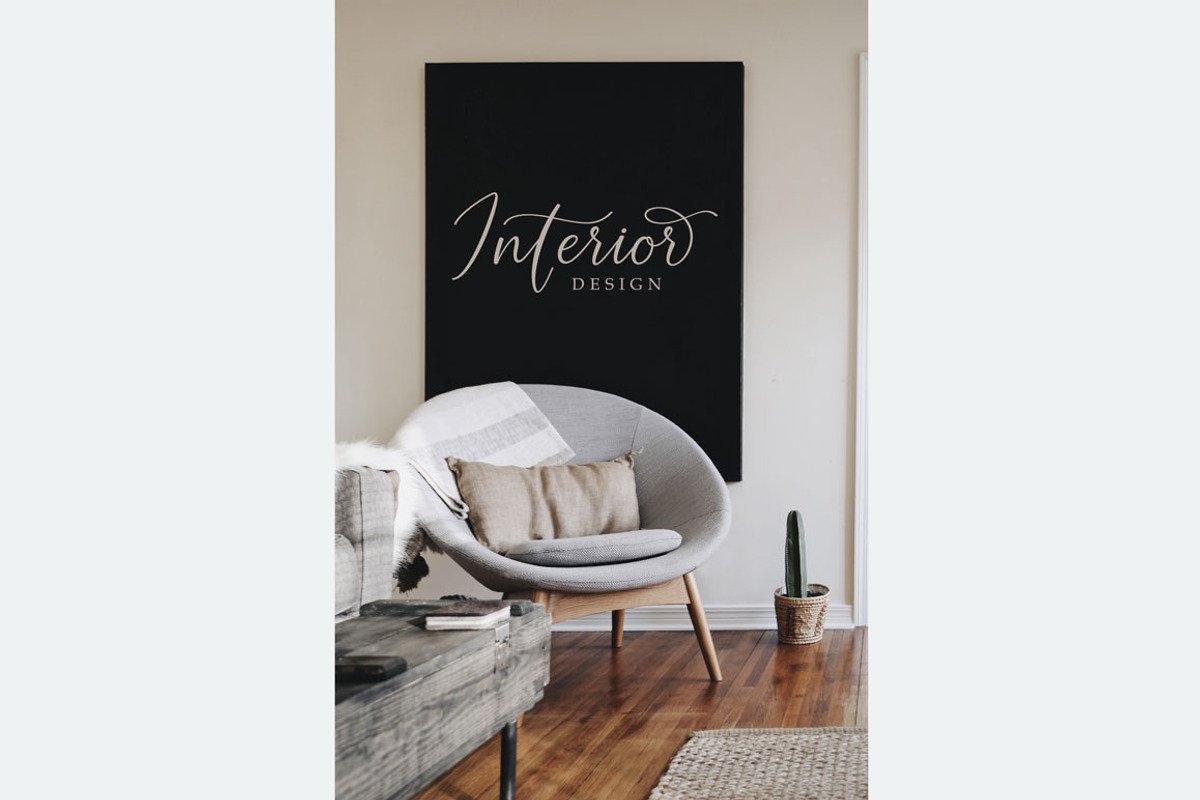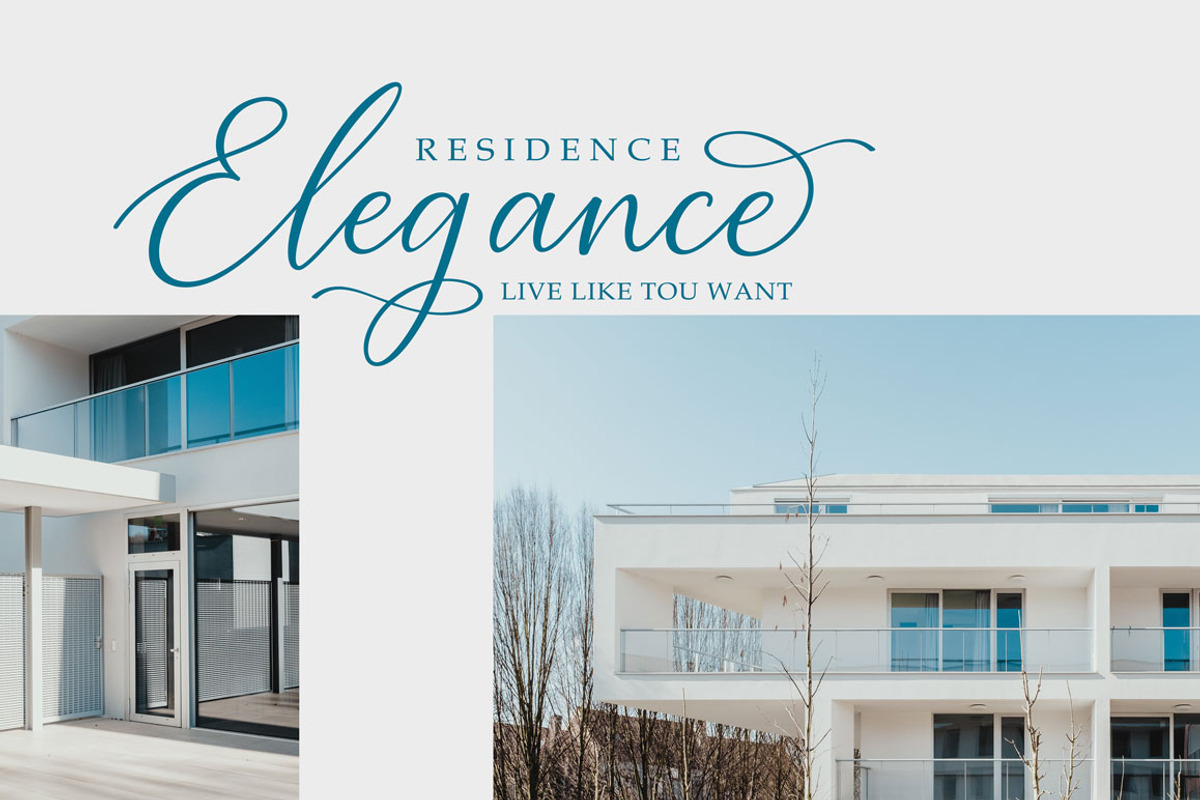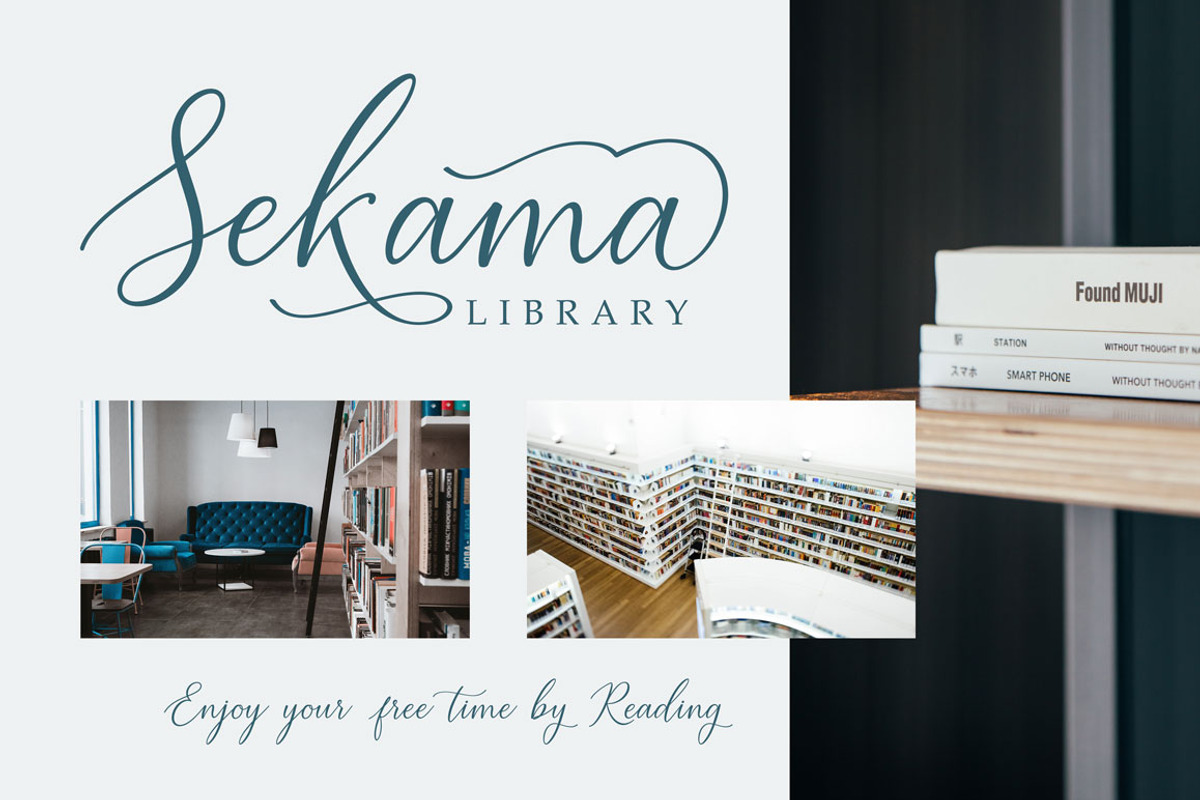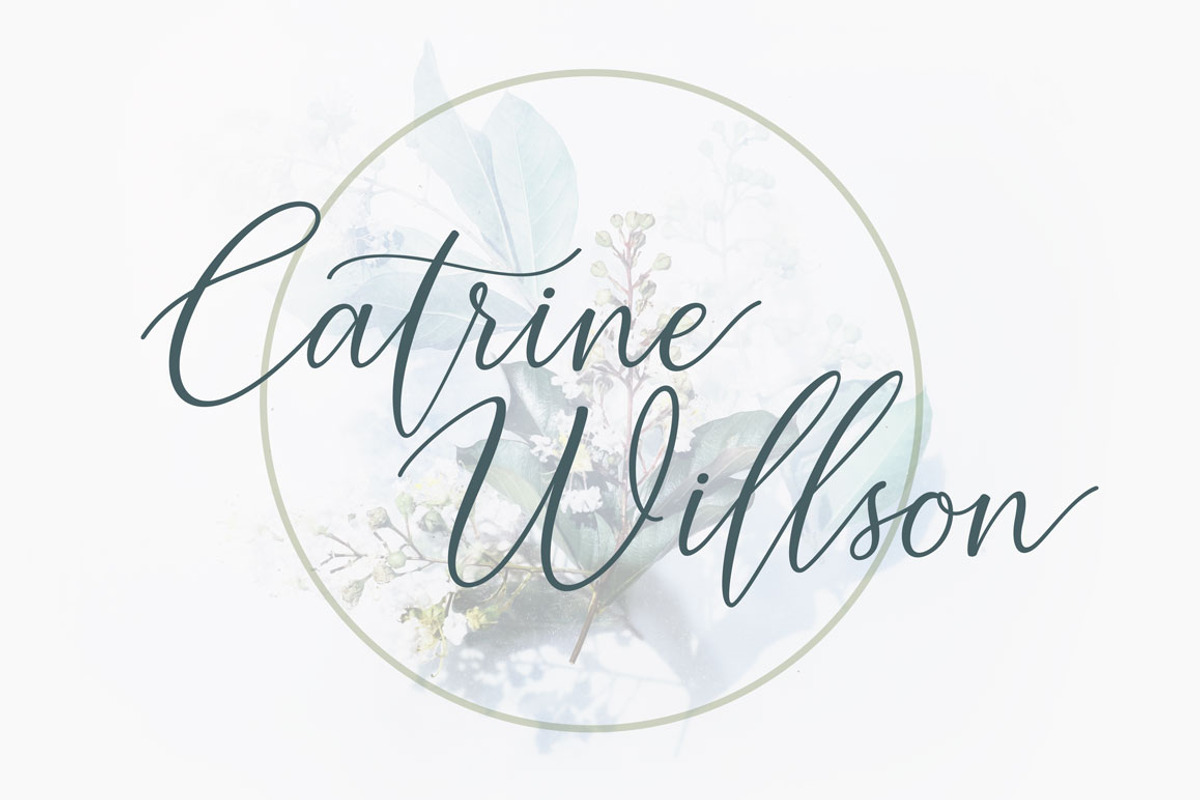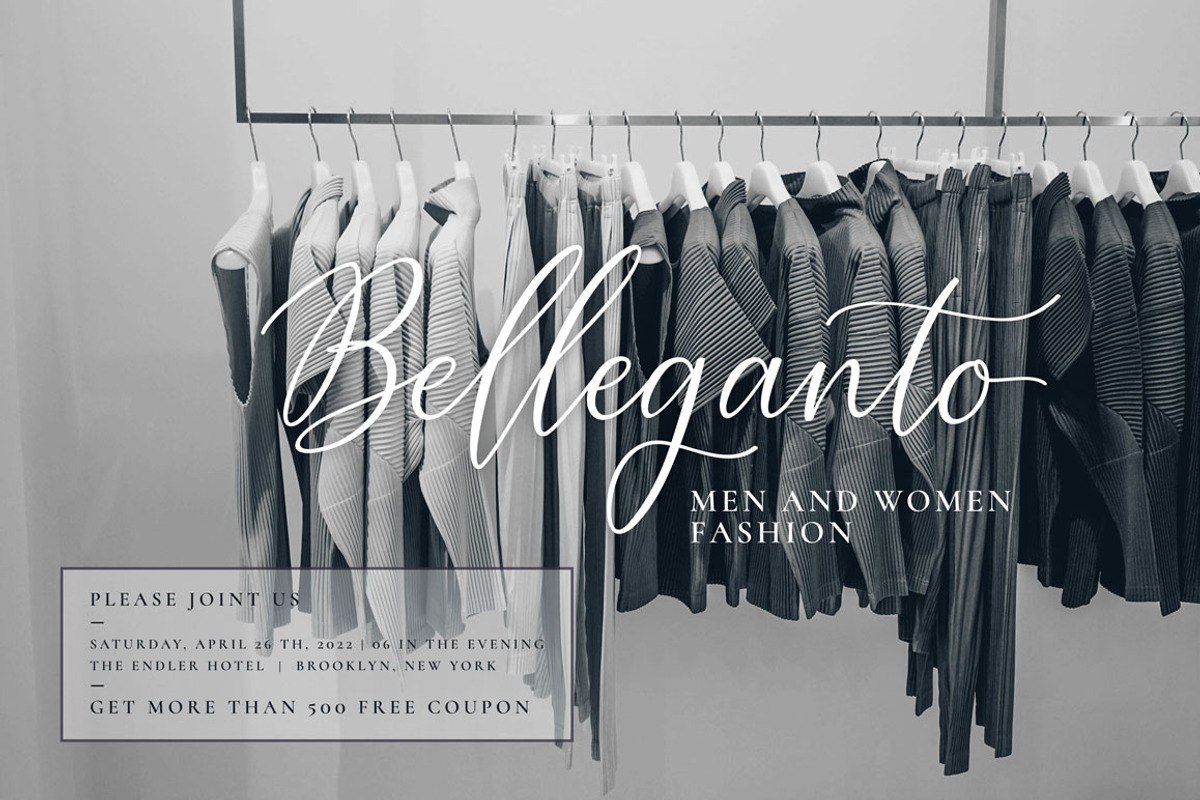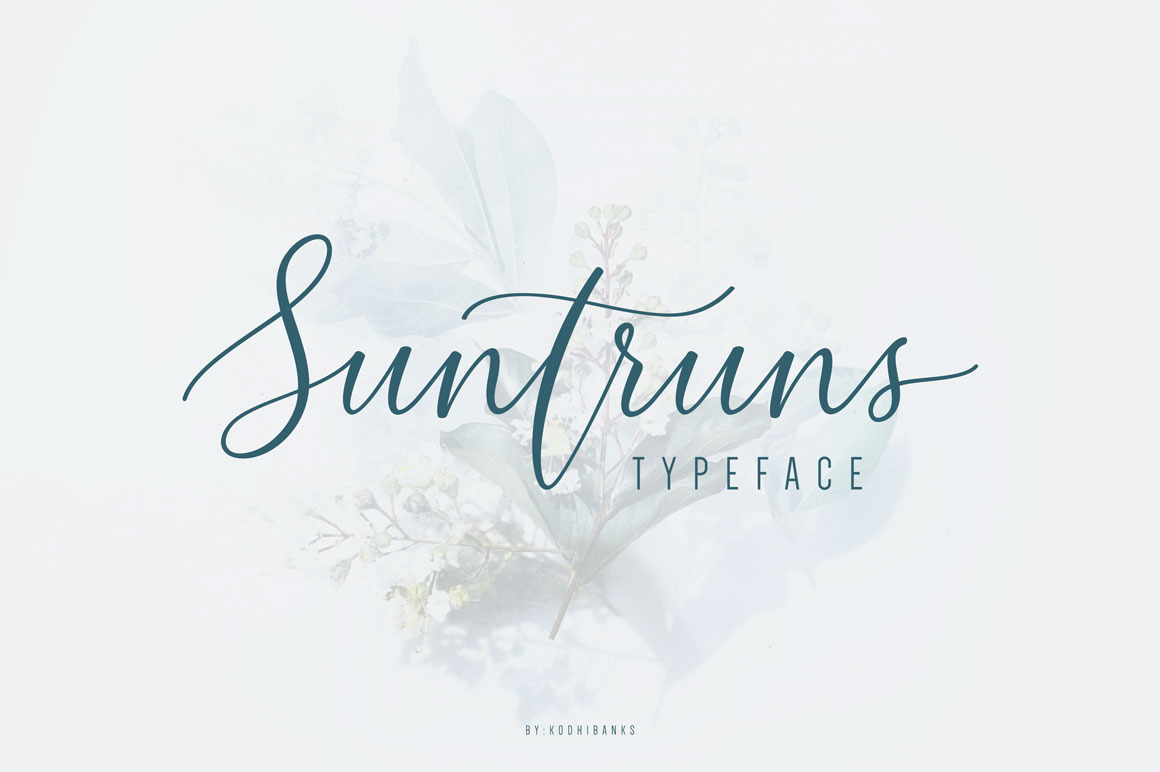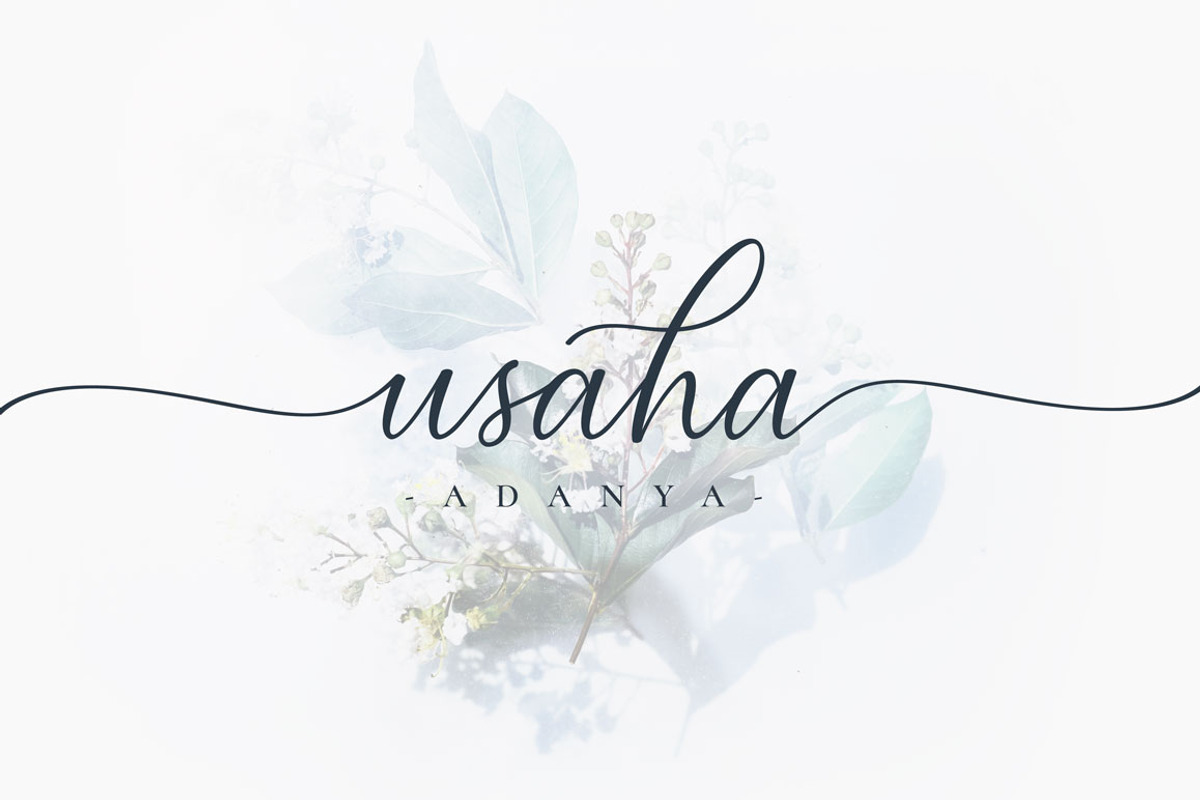
Suntruns Typeface
Suntruns Typeface is a modern typeface based on hand lettering that consists of an irregular swirling and flowing that gives the impression of handwriting, so it looks beautiful. This Typeface suitable for wedding invitations, greeting cards, quotes, photo captions, logo lettering, posters, branding, design of water-based paints, correspondence, and a variety of other purposes.
Suntruns Typeface includes several Ligatures, Contextual Alternates,Stylistic Alternates, Stylistic Sets ( These alternates are accessible by turning on 'Stylistic Alternates' in Photoshop, or via any software with a glyph panel, e.g. Adobe Illustrator, Photoshop CC ), and has given PUA encoded (specially coded fonts).
- Contextual Alternates
- Stylistic Sets